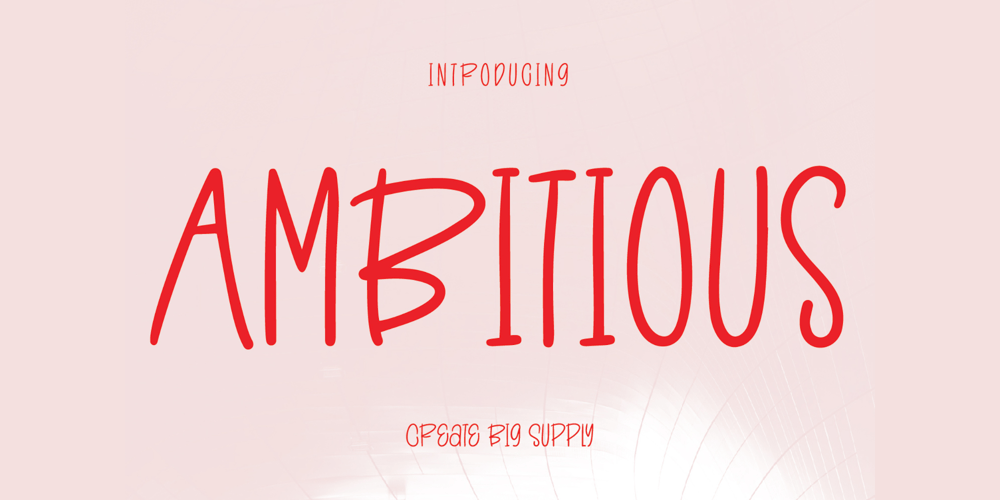
Ambitious
Ambitious font
Ambitious Font Family was designed by Irpan Maulana and published by Create Big Supply. Ambitious contains 1 styles and family package options. Ambitious is the perfect choice for adding a cute and energetic twist to your creative projects.With its combination of uppercase and lowercase letterforms, Ambitious offers versatility and allows you to create captivating typography that stands out. Whether you’re designing posters, children’s books, social media graphics, or any other lively project, this font will infuse your work with a sense of joy and excitement.The font includes a comprehensive range of characters, including numbers and punctuation marks, ensuring flexibility and compatibility across various design applications. It also supports multiple languages, enabling you to communicate your message effectively to a diverse audience.One of the standout features of Ambitious is its PUA Encoding, which grants easy access to all the special characters and glyphs. This means you can effortlessly incorporate unique flourishes and creative elements into your designs.Embrace the playful spirit of Ambitious and let your imagination soar. Whether you’re working on personal projects, branding, or any other creative endeavor, this font will bring a cheerful vibe to your audience’s experience.